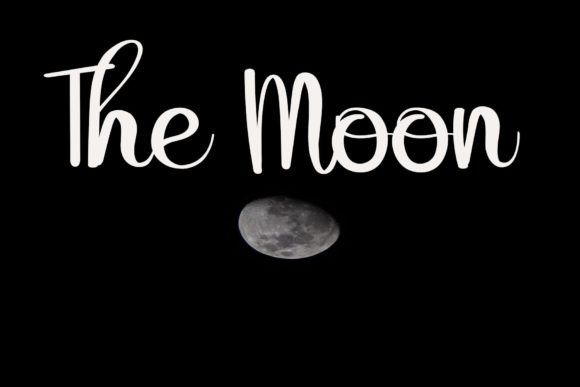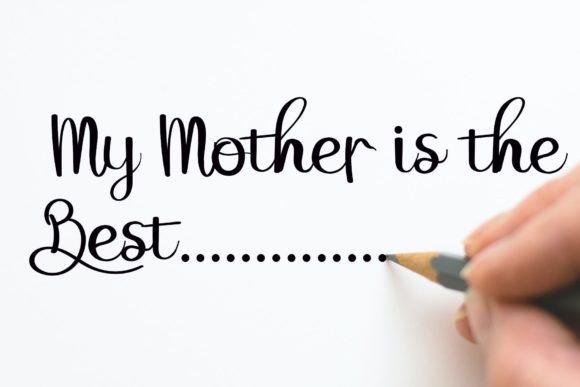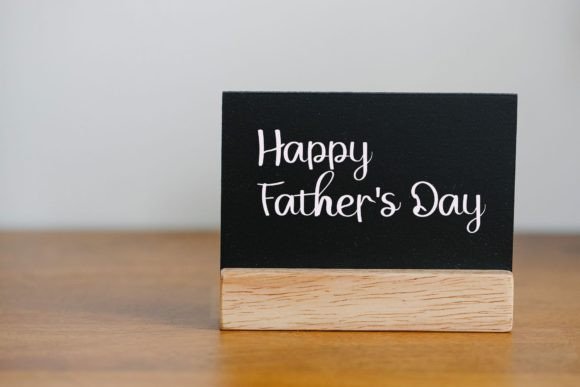
Mountain Font
About Mountain Font
Mountain is a charming and exquisite handwritten font that introduces a touch of sweetness and beauty to your design projects. With characters that gracefully dance along the baseline, this font brings a sense of luxury and sophistication, elevating the visual appeal of any creative endeavor you wish to undertake.
The inherent charm of Mountain lies in its handwritten elegance. Each character is crafted with precision, creating a delightful dance along the baseline that adds a unique and visually appealing element. This font becomes more than just a typographic choice; it becomes a key contributor to the overall luxury and aesthetic spark of your design.
The handwritten quality of Mountain imparts a personal and authentic touch to your projects. It’s as if each character has been carefully penned with artistic flair, giving your designs a bespoke and crafted feel. This makes Mountain an excellent choice for projects where a sense of individuality and luxury is desired.
Mountain’s ability to add a luxury spark to your designs is particularly noteworthy. The font transcends simplicity, infusing a touch of opulence that makes it suitable for a variety of high-end applications. Whether you’re working on upscale invitations, branding for luxury products, or any design project that demands a refined aesthetic, Mountain rises to the occasion.
Incorporate Mountain into your design toolkit, and watch as it transforms your projects into visually stunning creations. From elegant wedding invitations to sophisticated branding, this font brings a level of sweetness and beauty that is both captivating and timeless. Let Mountain be the exquisite touch that adds a luxurious spark to your design endeavors, making them truly stand out.